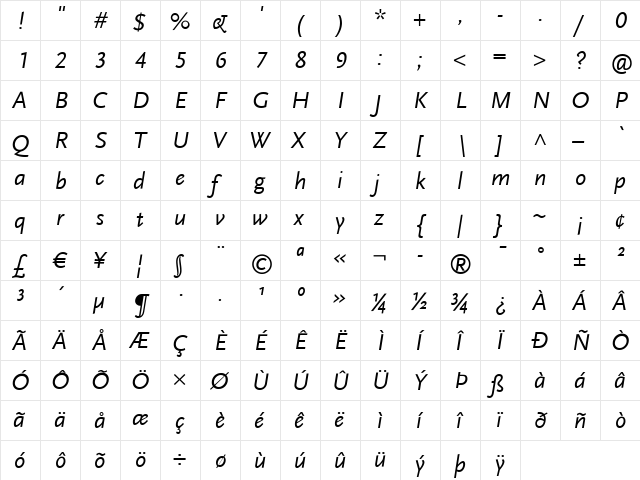
ScalaSansLF Italic
Design Context for ScalaSansLF Typeface
ScalaSansLF takes a measured approach to typography — its balanced proportions and neutral character make it a reliable workhorse for both digital and print work. The dynamic lean of this cut emphasises speed and emphasis in any layout.